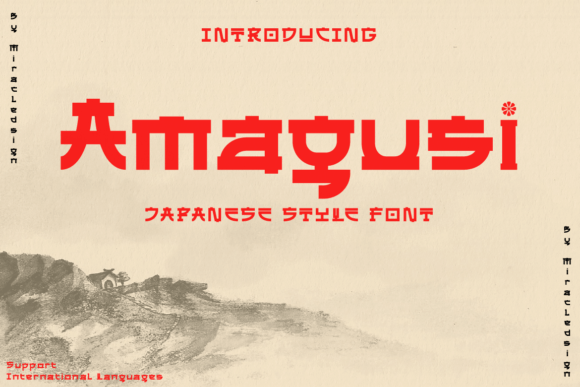
Unleash the Beauty of Japan with Amagusi Font: A Display Font Steeped in Japanese Culture
In the realm of digital artistry, fonts play a pivotal role in crafting captivating designs that resonate with audiences. Among the vast font universe, Amagusi Font stands out as a radiant gem, a display font that draws inspiration from the enchanting land of Japan. This font family is a true work of art, designed with meticulous attention to detail, offering an enthralling experience that captivates the beholder.
Crafted by the skilled hands of miracledsign, Amagusi Font is a testament to the beauty and uniqueness of Japanese culture. Its captivating contours and anatomy are reminiscent of the graceful strokes of kanji, the traditional Japanese writing system. With each letterform, Amagusi evokes a sense of ancient wisdom and artistry, transporting users to a realm where aesthetics and functionality harmoniously coexist.
Discover the Allure of Amagusi Font:
* Japanese Inspiration: Amagusi embodies the essence of Japan, capturing the country's rich cultural heritage in every curve and line.
* Display Perfection: Designed specifically for display purposes, Amagusi shines brightest in headlines, logos, posters, and other prominent design elements.
* Aesthetic Elegance: The font's intricate details and flowing strokes lend an air of sophistication and charm to any project, leaving a lasting impression on viewers.
* Kanji Influence: Inspired by the aesthetics of kanji characters, Amagusi possesses an artistic quality that elevates designs to new heights.
* Small Display Mastery: Amagusi excels in small display applications, making it an ideal choice for UI elements, mobile apps, and other compact spaces.
Unlock the Artistic Potential of Amagusi Font:
Amagusi Font is not merely a collection of characters; it's an invitation to embark on a creative journey, to explore the depths of artistic expression and craft designs that captivate and inspire. Whether you're a seasoned designer or just starting, Amagusi empowers you to create visual masterpieces that leave an indelible mark on your audience.
From striking logos that demand attention to captivating posters that tell a story, Amagusi Font is your trusted companion in the realm of design. Its versatility and boundless creativity allow you to push the boundaries of imagination and create designs that resonate with your target audience.